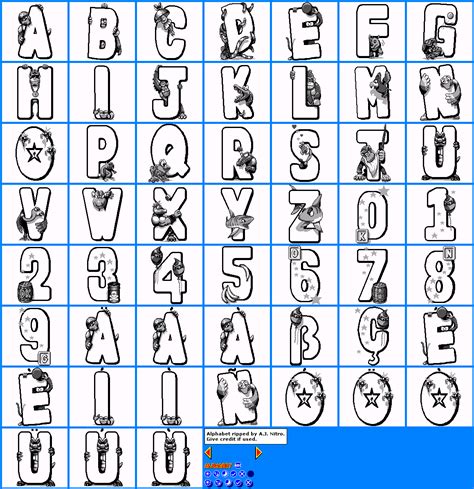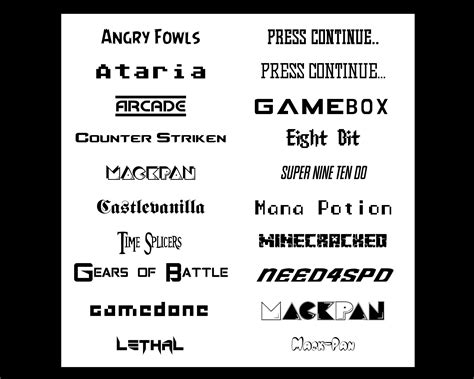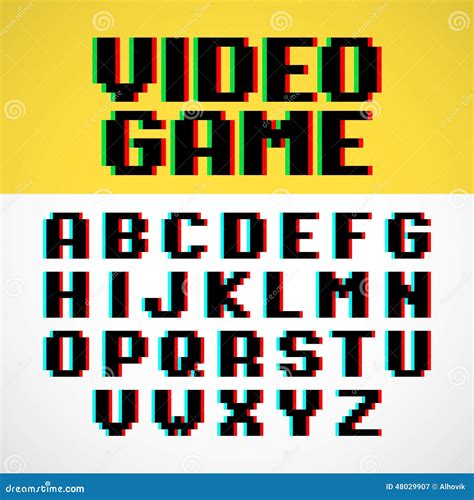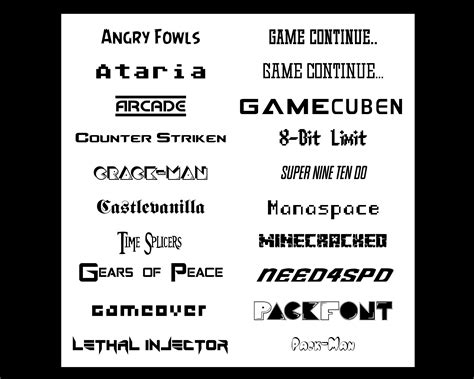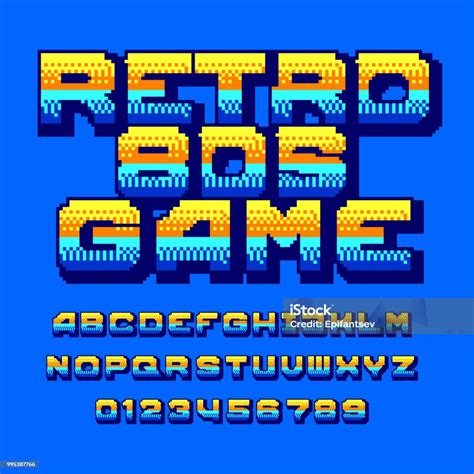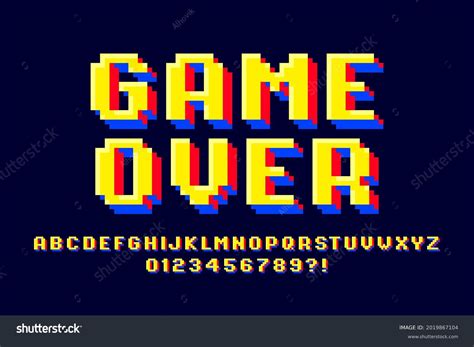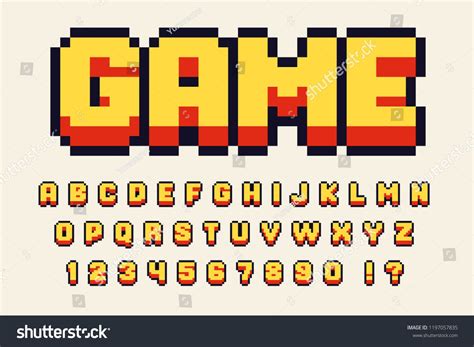
In the world of digital entertainment, the visual and auditory elements of a computer game are often the first things that capture a player's attention. However, there is another crucial aspect that can significantly enhance the gaming experience: the Computer Game Font. The right font can immerse players deeper into the game's universe, convey the game's tone, and even improve readability, making it an essential component of game design.
The Importance of Computer Game Fonts
Fonts in computer games serve multiple purposes beyond just displaying text. They can set the mood, reinforce the game's theme, and ensure that important information is easily readable. For instance, a fantasy game might use an ornate, medieval-style font to enhance the immersive experience, while a futuristic game might opt for a sleek, modern font to reflect its advanced technology.
Moreover, the choice of font can affect the game's accessibility. A well-designed font can make text easier to read, especially for players with visual impairments. This is particularly important in games that rely heavily on text, such as role-playing games (RPGs) or strategy games.
Types of Computer Game Fonts
There are various types of fonts that can be used in computer games, each with its own unique characteristics and uses. Some of the most common types include:
- Serif Fonts: These fonts have small lines or strokes at the ends of characters. They are often used in games with a classic or traditional feel.
- Sans-Serif Fonts: These fonts do not have the small lines at the ends of characters. They are modern and clean, making them ideal for futuristic or minimalist games.
- Script Fonts: These fonts mimic handwriting or calligraphy. They are often used in games with a romantic or elegant theme.
- Display Fonts: These fonts are designed to be bold and eye-catching. They are often used for titles, headings, or special effects.
- Monospaced Fonts: These fonts have characters that are all the same width. They are commonly used in coding or technical games where alignment is important.
Choosing the Right Computer Game Font
Selecting the right font for a computer game involves considering several factors. Here are some key points to keep in mind:
- Game Genre: The genre of the game can dictate the type of font that is most appropriate. For example, a horror game might use a font that is eerie and unsettling, while a children's game might use a font that is fun and playful.
- Readability: The font should be easy to read, especially in fast-paced games where players need to quickly absorb information. Avoid fonts that are too ornate or difficult to decipher.
- Consistency: The font should be consistent with the overall aesthetic of the game. This includes the color, size, and style of the font.
- Accessibility: Consider players with visual impairments. Use fonts that are large enough and have sufficient contrast against the background.
Designing Custom Computer Game Fonts
For games that require a unique and distinctive look, designers often opt to create custom fonts. This process involves several steps:
- Conceptualization: Start by sketching out the design of the font. Consider the overall style and feel of the game.
- Digitization: Use software like Adobe Illustrator or FontForge to convert the sketches into digital format. This involves creating vector shapes for each character.
- Refinement: Refine the design by adjusting the spacing, kerning, and overall proportions. Ensure that the font is legible and visually appealing.
- Testing: Test the font in various contexts within the game to ensure it works well with different backgrounds and text sizes.
💡 Note: Creating a custom font can be a time-consuming process, but it allows for a high degree of customization and uniqueness.
Popular Computer Game Fonts
Over the years, several fonts have become iconic in the gaming world. Here are a few notable examples:
| Game | Font | Description |
| The Legend of Zelda | Hylian | A stylized, fantasy font that adds to the game's magical atmosphere. |
| Final Fantasy | Final Fantasy VII | A distinctive, pixelated font that has become synonymous with the series. |
| Minecraft | Minecraftia | A blocky, pixelated font that matches the game's retro aesthetic. |
| World of Warcraft | A bold, medieval font that fits the game's fantasy setting. |
The Future of Computer Game Fonts
As technology advances, the possibilities for Computer Game Fonts continue to expand. With the rise of virtual reality (VR) and augmented reality (AR), fonts are becoming more dynamic and interactive. For example, fonts in VR games can change based on the player's movements or interactions, creating a more immersive experience.
Additionally, advancements in artificial intelligence (AI) are enabling the creation of fonts that can adapt to different languages and cultural contexts. This makes games more accessible to a global audience.
In conclusion, the role of Computer Game Fonts in enhancing the gaming experience cannot be overstated. From setting the mood to improving readability, fonts are a crucial element of game design. As technology continues to evolve, we can expect to see even more innovative uses of fonts in computer games, making the gaming experience more immersive and enjoyable for players around the world.